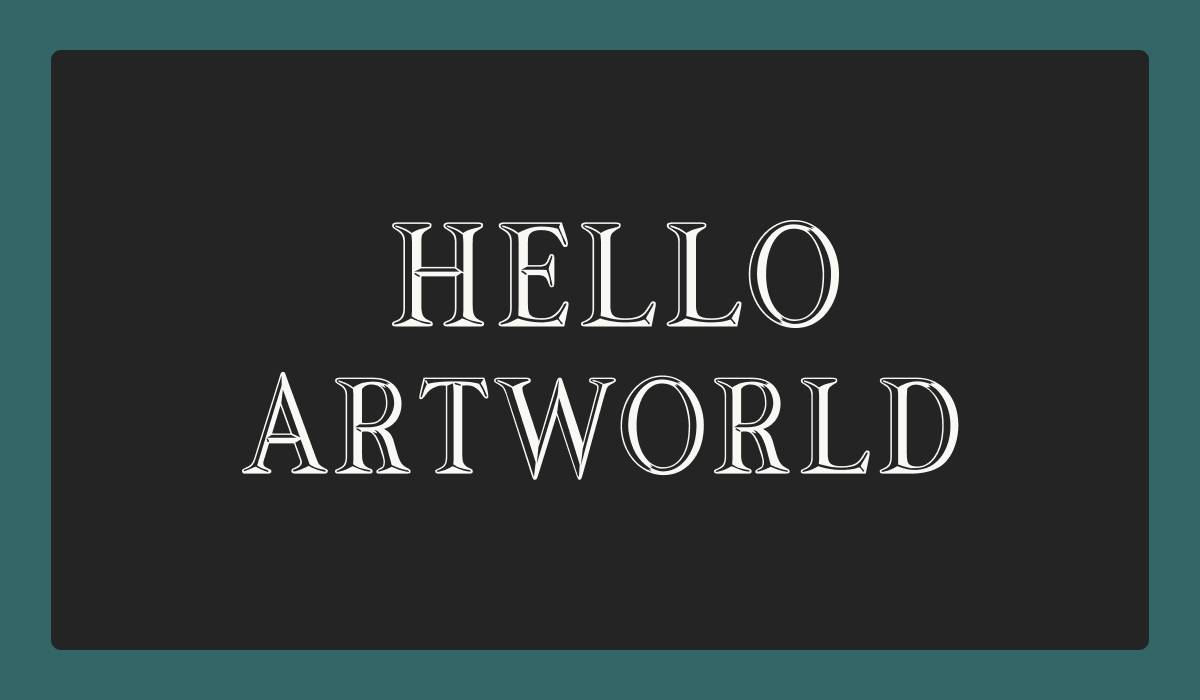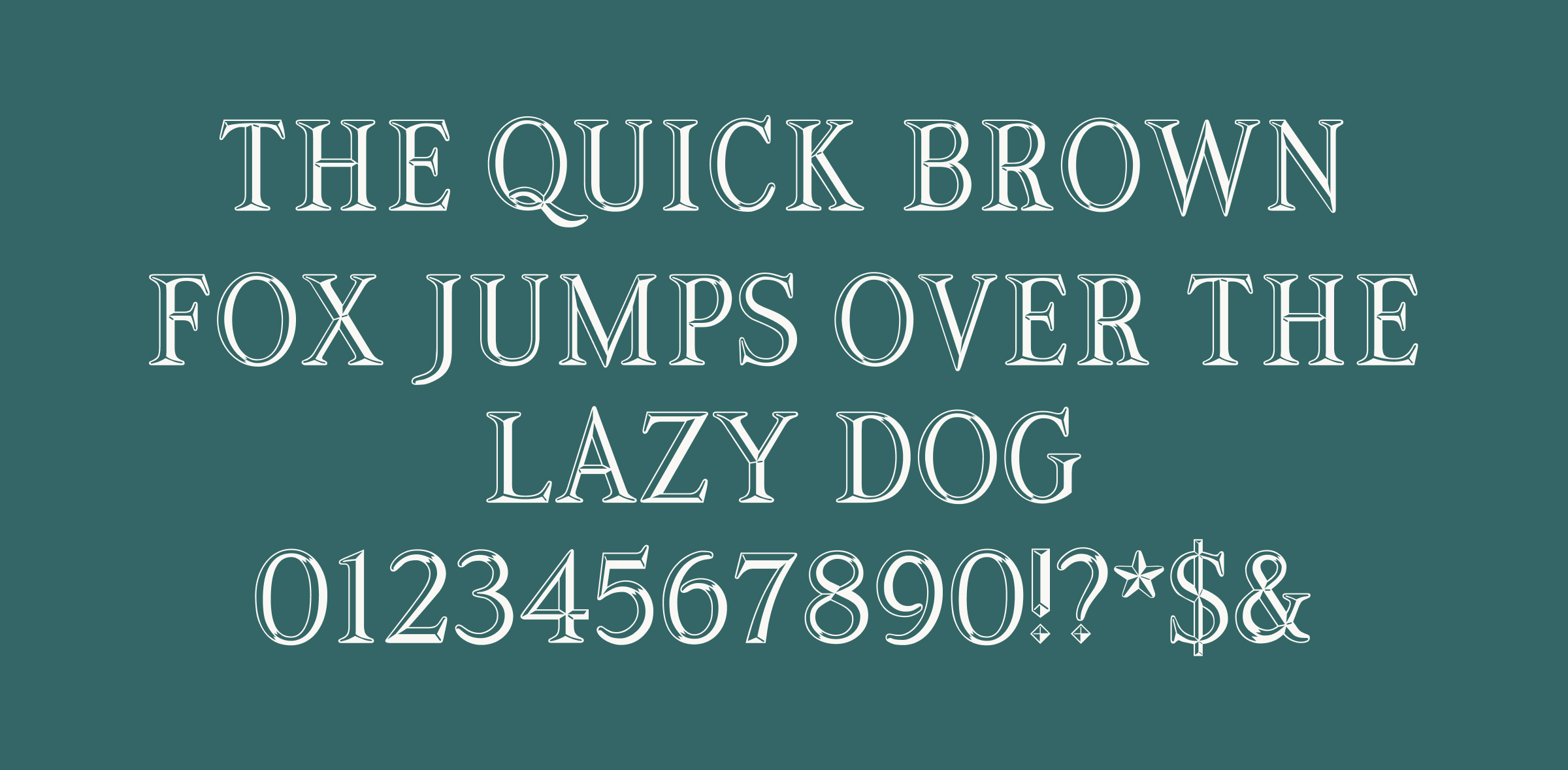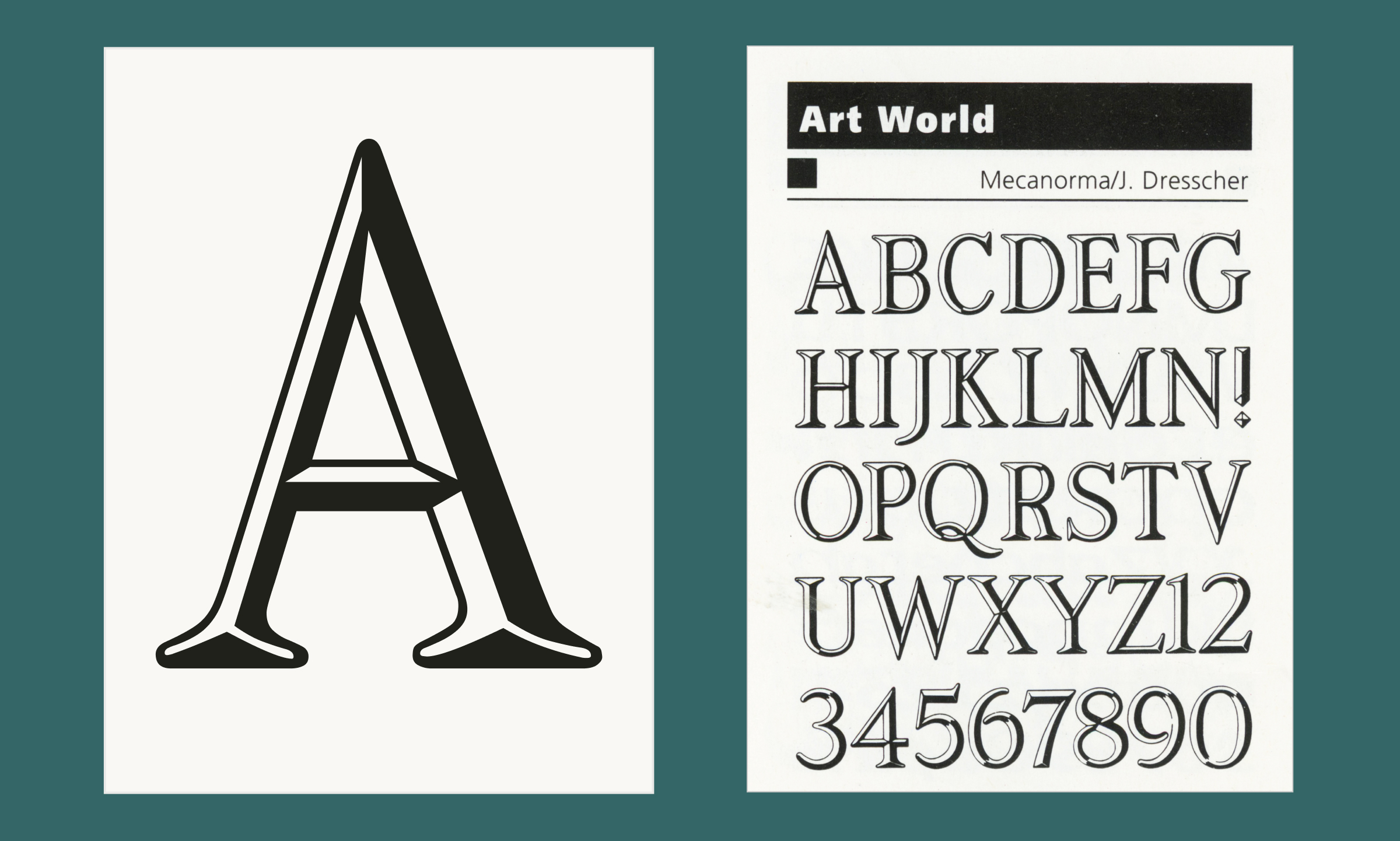
Meet Artworld: A Striking Display Typeface with Vintage Flair
Artworld is a bold, nostalgic display typeface that captures the vibrant, expressive spirit of 1980s graphic design. Originally a rub-down lettering style, it's now digitally preserved for modern creators looking to channel vintage flair.
Type Details
- Display typeface inspired by 1980s rub-down lettering
- Beveled letterforms with sculpted light-and-shadow effects
- Editable internal shapes for custom dimensional styling
Artworld is ideal for album covers, event posters, fashion branding, or a “vintage cool”. Its sleek beveled edges and sculpted light-and-shadow effects channel the nostalgia of a bygone design era, while adding a fresh, modern twist. Artworld is a rare gem that seamlessly blends vintage charm with modern versatility. It’s one of those unique fonts that’s perfect for that special project. My favorite feature is the ability to select and style individual shapes within each letter, then experiment with colors and shadows for added dimensionality.
Behind the Typeface
Originally released in 1984 by French company Mecanorma, Artworld comes from a rich history of rub-down lettering, a once-essential tool for graphic designers. In the early 2000s, International TypeFounders (ITF) revived this lettering legacy by digitizing the Mecanorma Collection, preserving a powerful archive of expressive display styles. Artworld stands out as one of its gems.
Using Artworld for Typography and Design
Artworld brings instant attitude to any project. Whether you're crafting a retro-inspired album cover, a bold fashion campaign, or a poster that needs to stop someone in their tracks, this typeface delivers standout impact. Its dimensional details and nostalgic energy make it a go-to for typographers and designers who want their work to feel expressive and new. Pair it with simple sans serifs or minimal layouts to let the letters truly shine.